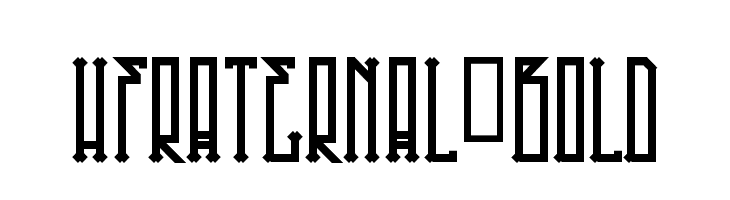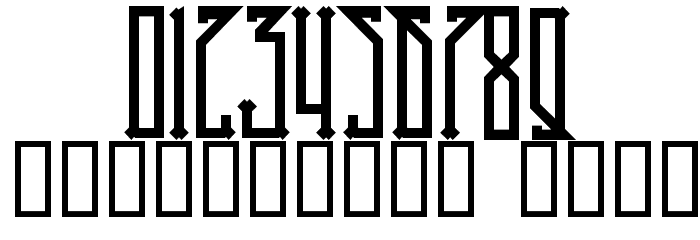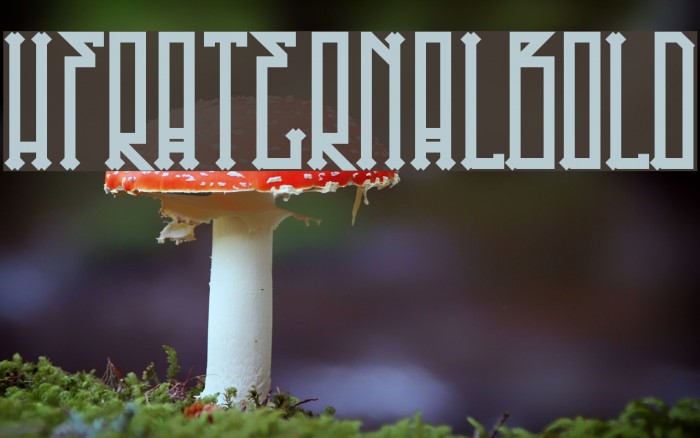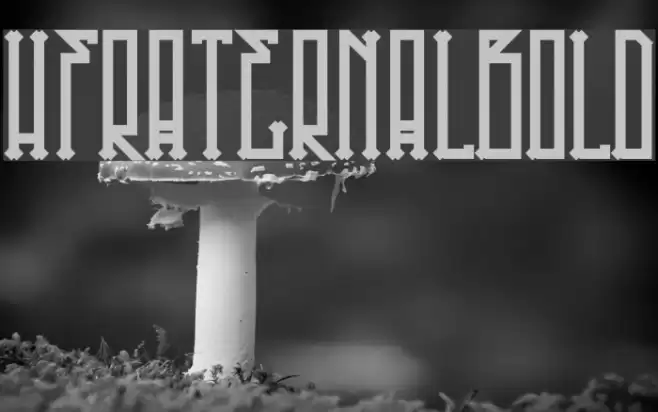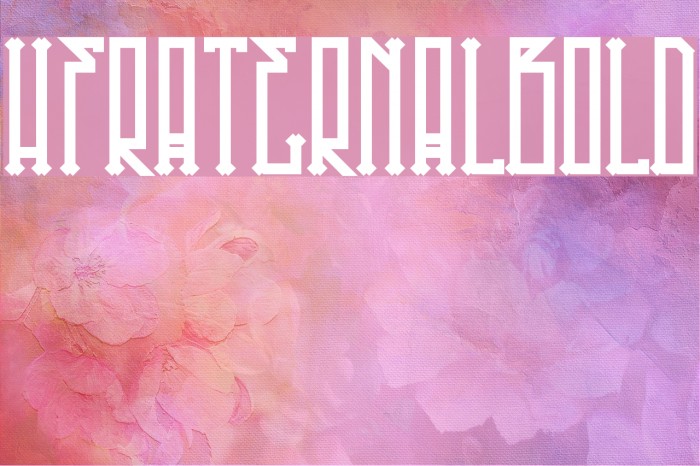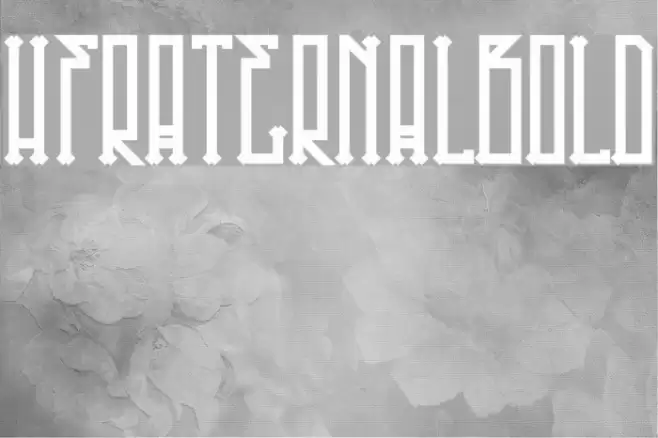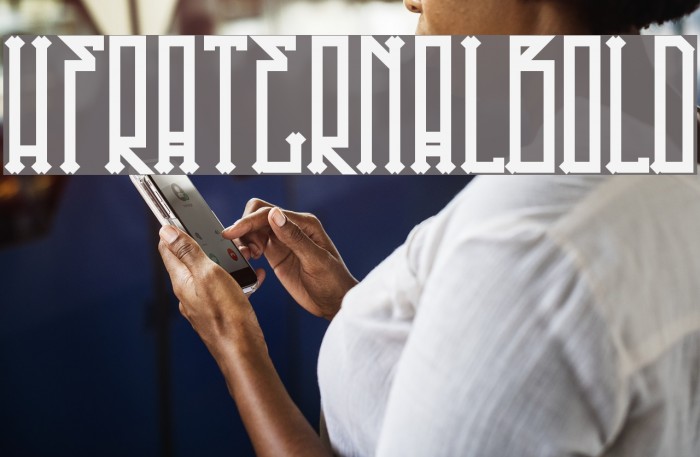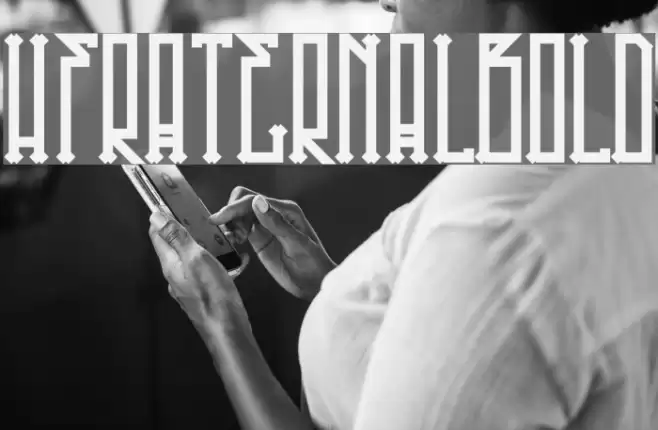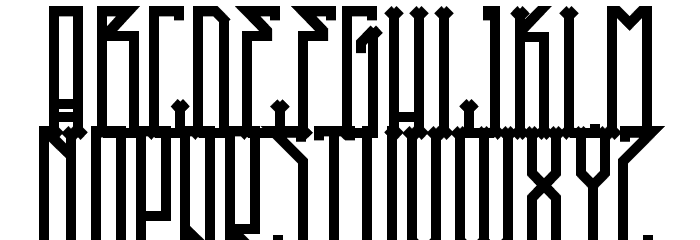
HFraternal-Bold Font
HFraternal-Bold Description
This font features a bold and striking design with a distinct geometric style. The characters are tall and narrow, with sharp angles and a consistent vertical emphasis. The uppercase letters have a uniform height, while the lowercase letters maintain a similar structure, creating a cohesive look. The numerals are equally bold, fitting seamlessly with the overall aesthetic. Special characters are designed to match the angular and geometric theme, ensuring consistency across all glyphs. This font's unique style makes it stand out, ideal for projects that require a modern and edgy appearance.
| Proposed Projects | Ideal for branding, posters, album covers, and any design requiring a modern, edgy look. |